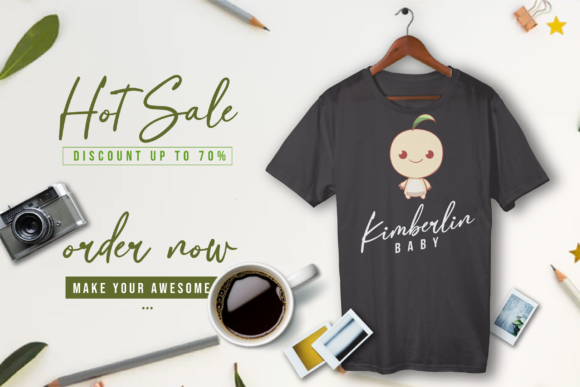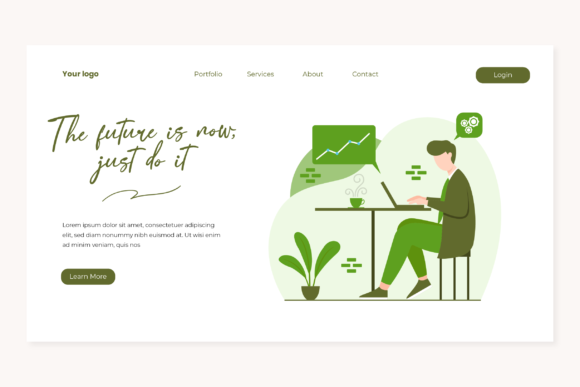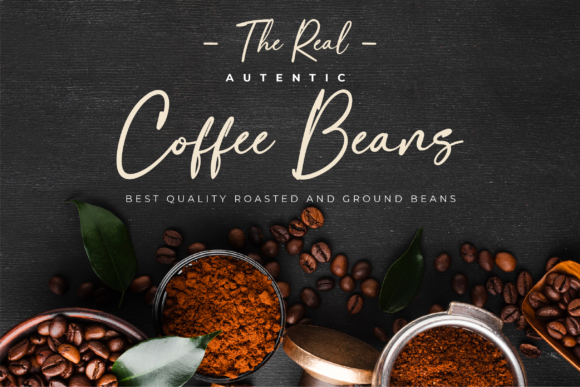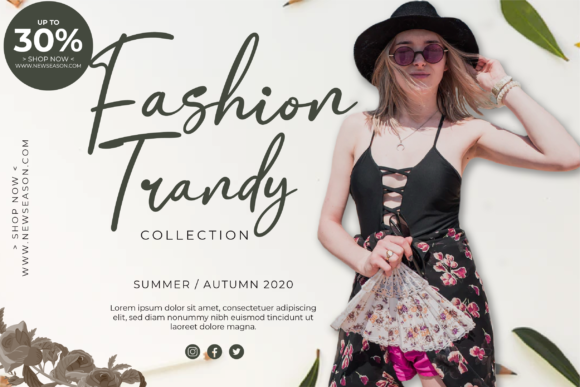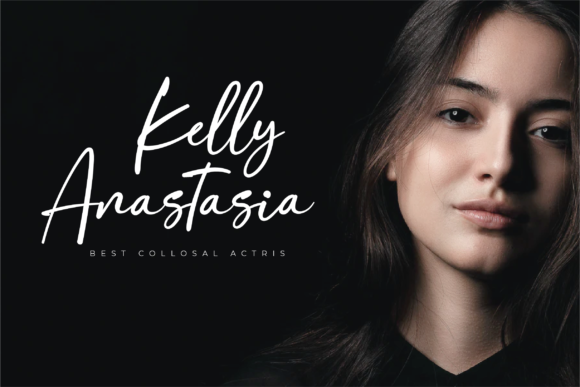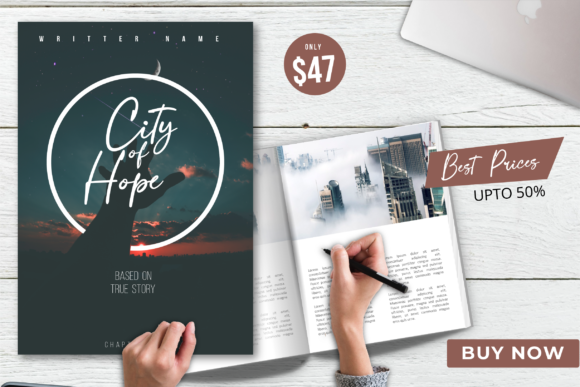
Introduction to Raimont Font
Have you ever found yourself staring at a blank canvas, struggling to bring your creative vision to life? The blank page can be daunting, but with the right design resource, everything changes. This is where the Raimont Font comes in – a high-quality, handwritten font that will elevate your creative projects to new heights.
As a designer, you know how crucial it is to have a reliable font that can convey elegance and sophistication. Raimont Font masterfully blends calligraphic influences with a contemporary touch, making it perfect for a wide range of creative projects. Whether you’re working on a branding project or a simple graphic design, this font is sure to impress. And the best part? It’s available for free download with a transparent background, making it easy to incorporate into your designs.
Key Features of Raimont Font
- High-quality design resource suitable for creative projects, including logos, branding, and advertisements.
- Includes a range of unique characters and glyphs, making it an ideal choice for creative projects that require a distinctive look.
- Supports various languages, including Latin, Cyrillic, and Greek scripts, making it a versatile design resource.
Honest Review: Raimont Font
I recently had the chance to work with the Raimont Font, and I must say it’s been a great experience. This font is a fantastic design resource that offers a high quality and unique aesthetic.
- What works well: ✨ The font’s clean and modern design makes it perfect for creative projects, such as logos, brochures, and websites. The transparent background feature allows for seamless integration with any design.
- What works well: ✨ The font’s versatility is impressive, making it suitable for a wide range of applications, from formal to informal content.
However, there are a few limitations to consider: ⚠️ The font’s character set is not as extensive as some other fonts I’ve worked with, which may limit its use for more complex projects. Additionally, the font’s bold weight can sometimes appear too bold, making it difficult to read.
Overall, I’m impressed with the Raimont Font. It’s a great addition to any designer’s toolkit, especially for those working on creative projects that require a unique and high-quality font. The free download is a definite plus, making it accessible to designers of all levels.
Raimont Font
The Raimont Font is a high-quality design resource that offers a unique and creative touch to your projects. With a transparent background, this font is perfect for designers who want to add a touch of elegance to their work.
Tips for Getting the Most Out of Raimont Font
Here are some tips for getting the most out of the Raimont Font:
- Experiment with different font sizes and styles.
- Combine the Raimont Font with other design elements for a unique look.
- Use the font in a variety of design projects, from business cards to posters.
The Raimont Font is perfect for a variety of design projects, including:
- Business cards and letterheads.
- Posters and flyers.
- Web design and digital art.